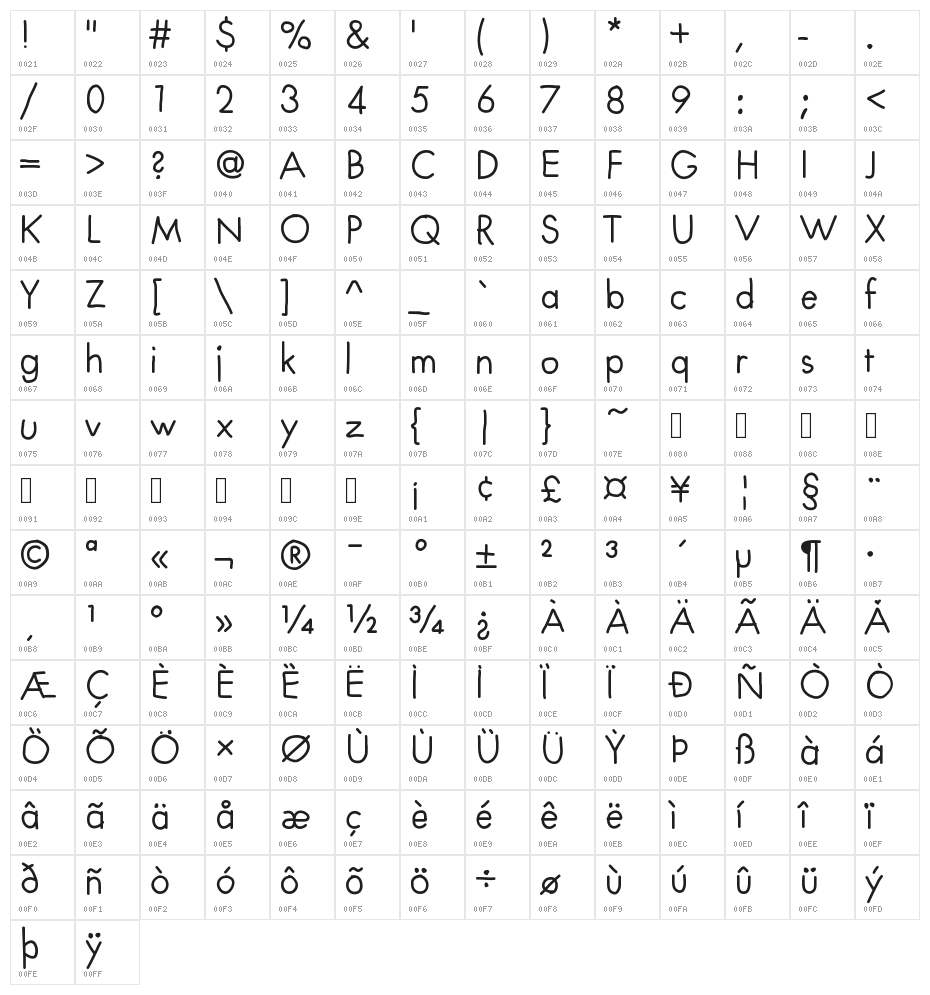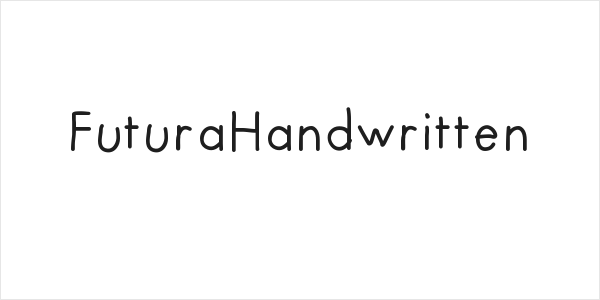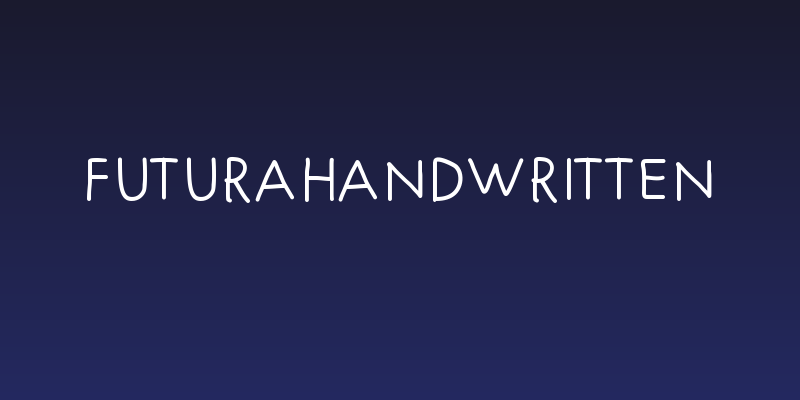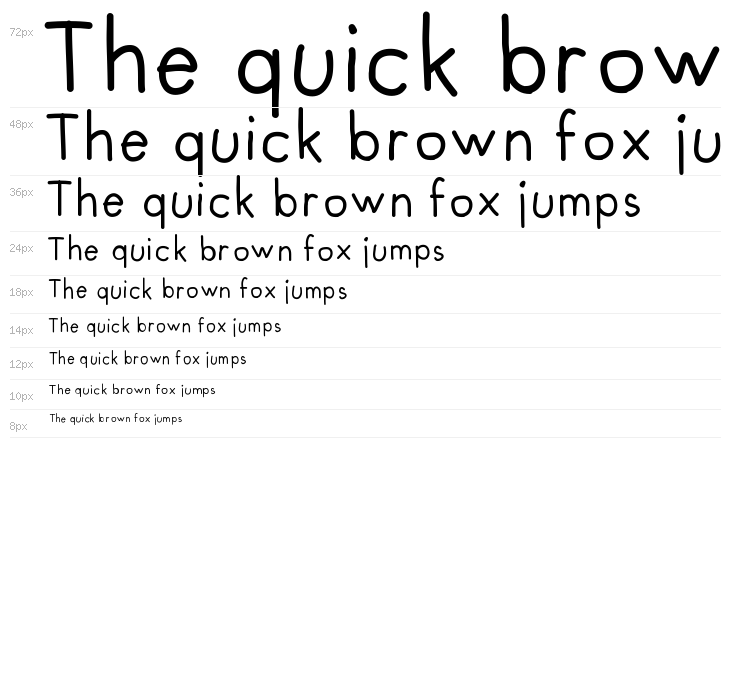
FuturaHandwritten Font
FuturaHandwritten Description
This font exhibits a playful and casual handwritten style, characterized by its smooth, flowing lines and slightly irregular shapes. The uppercase letters maintain a consistent height, while the lowercase letters display a charming variety in size and form, adding to the font's informal appeal. The numerals are rounded and easy to read, complementing the overall aesthetic. Special characters are well-integrated, maintaining the same whimsical quality. The strokes are consistent in thickness, providing a harmonious and balanced appearance. This font is ideal for projects that require a personal touch or a friendly, approachable vibe.
| Use Case | Headlines, Informal text, Personal projects |
| Proposed Projects | Greeting cards, personal blogs, children's books, casual invitations, and social media graphics. |